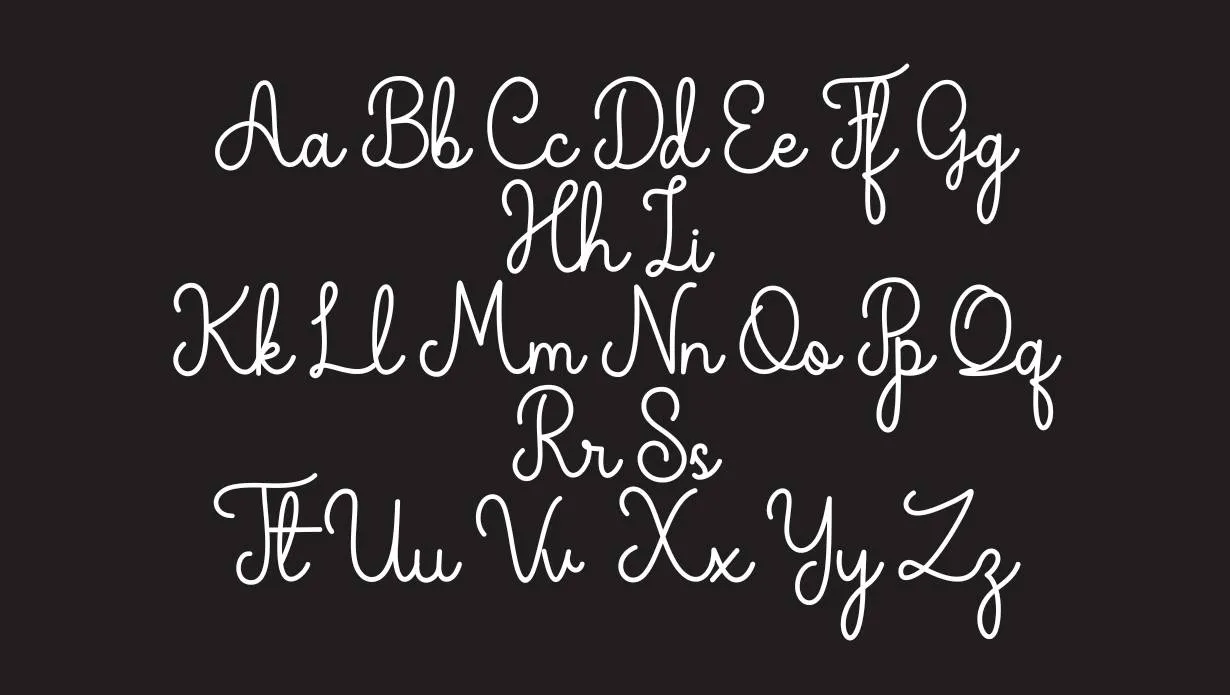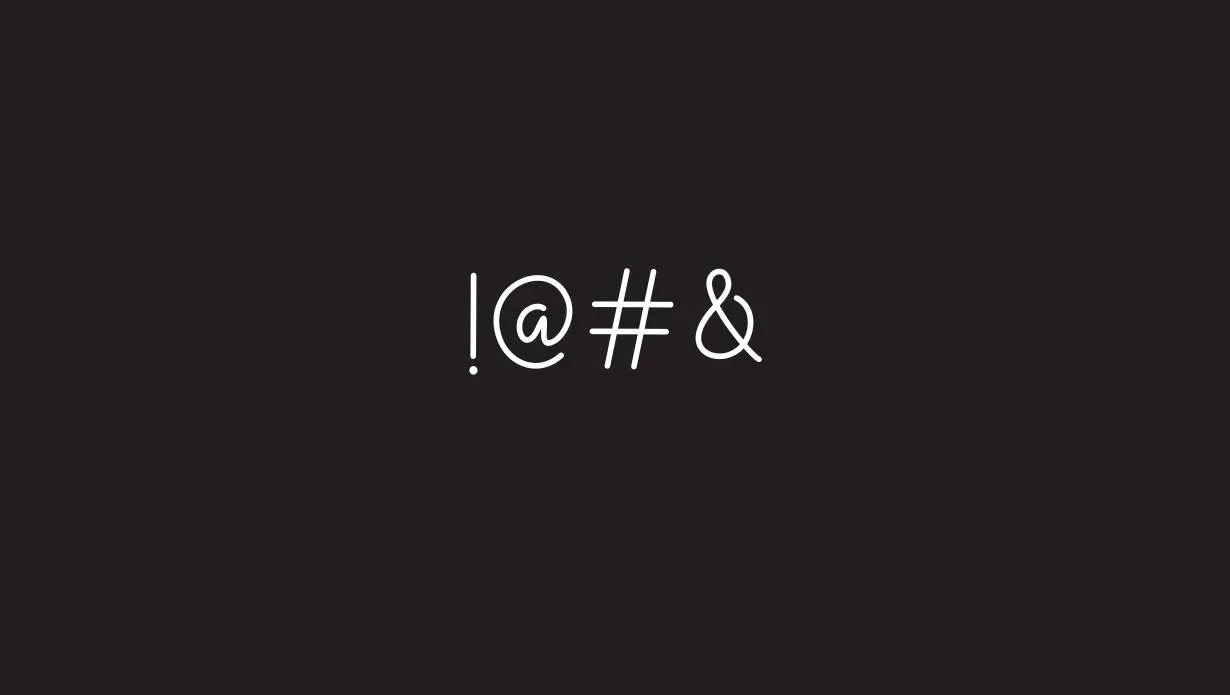
The Grateful Font Free Download
The Grateful Font is an amazing script-style typeface with thin characters that have a slightly bold look with stylish edges and low x-axis height characters.
- The Grateful Regular
- The Grateful Italic